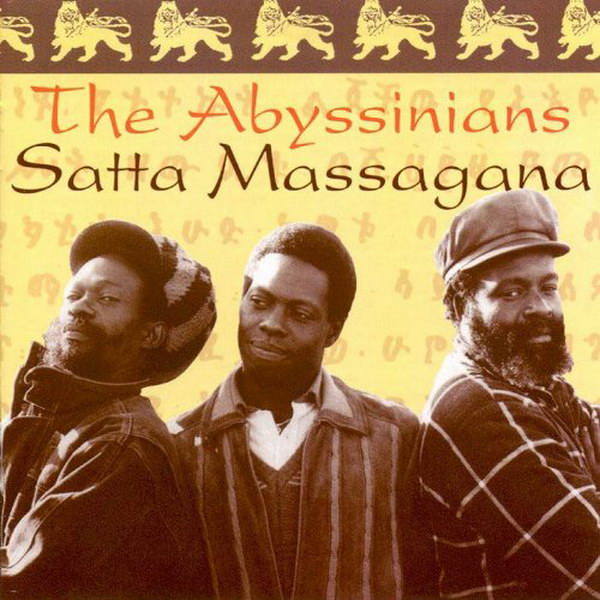
Satta Massagana Font
Fonts in UseSatta Massagana is a roots reggae album by The Abyssinians, released in 1976. It is considered a classic of the genre and features the iconic title track, which has become a Rastafarian anthem.
The album cover probably uses Present Roman font, a calligraphic typeface by Friedrich Karl Sallwey in 1974. Further information regarding the font can be accessed here.